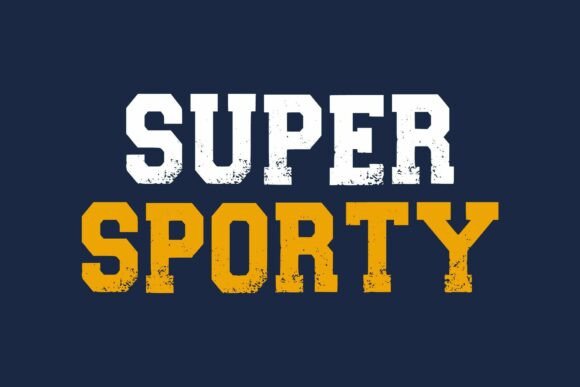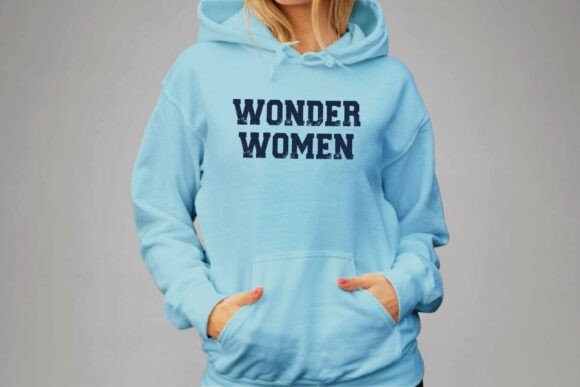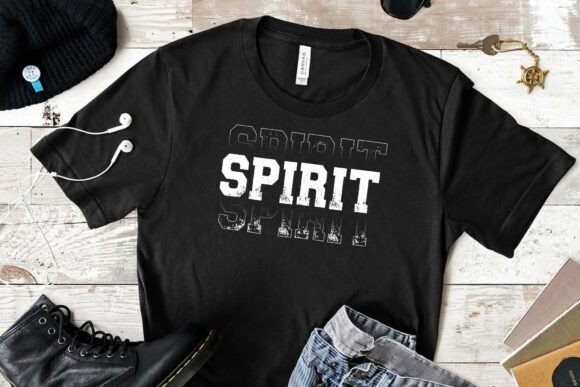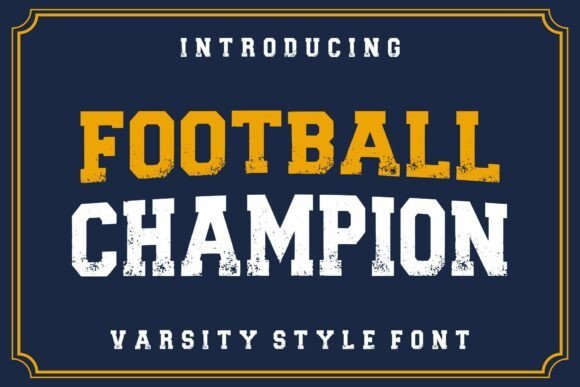
Introduction to Footballchampion Regular Font
Football Champion is a bold, contemporary display font that exudes confidence and charisma.
Its design features striking contrasts between uppercase and lowercase letterforms, transforming each glyph into a dynamic visual statement With its athletic edge and modern flair, Football Champion shines in designs for sportswear, varsity jackets, quotes, logos, packaging, and text effects.